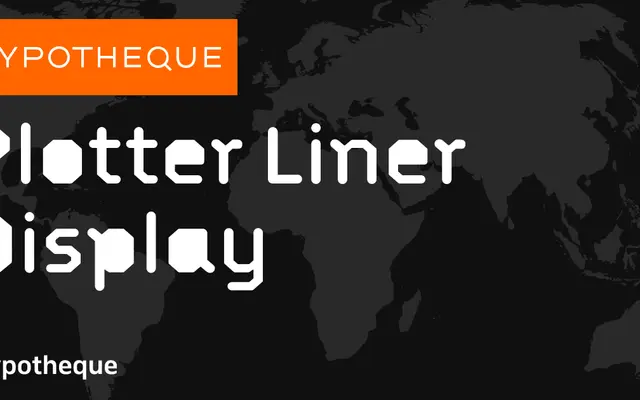
Plotter Liner Display
A layered display system from Typotheque built around plotter pen aesthetics, with city-named layer variants designed for chromatic and overlay composition.
Part of the broader Plotter Liner family, the Display cut is built around a bold weight split across four named layers (Amsterdam, Bengaluru, Copenhagen, Damascus, Edinburgh) that can be stacked for colour effects. The wider system includes Text, Stencil, Mono and Mono Stencil subfamilies, giving the family unusual range across print, screen and technical applications. The single-stroke, pen-plotter logic running through the whole system gives it a consistent mechanical character rarely seen across such a broad type family.
A layered display system designed around plotter pen aesthetics, with named city-coded layer variants (Amsterdam, Bengaluru, Copenhagen, Damascus, Edinburgh) intended for colour and overlay use. Its mechanical, single-stroke construction places it firmly in the display category.